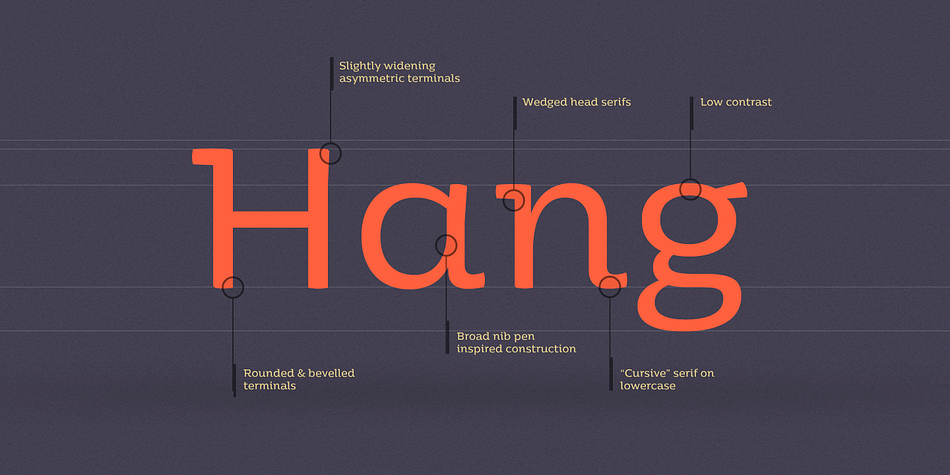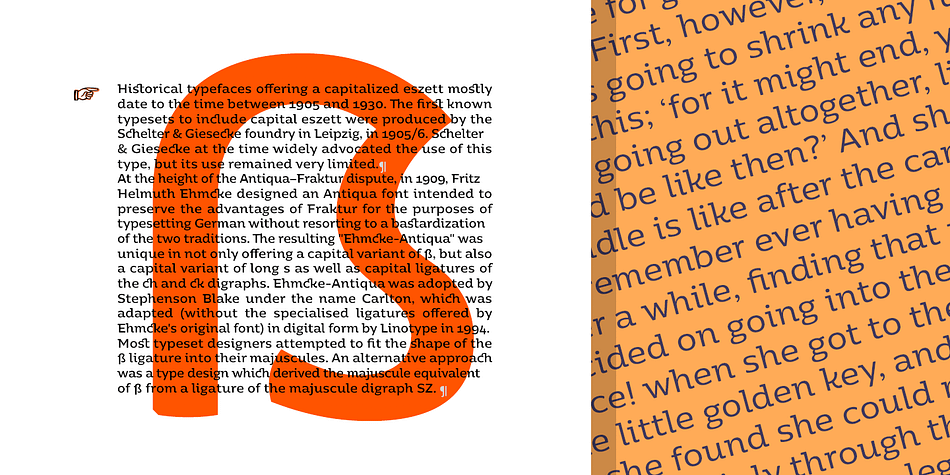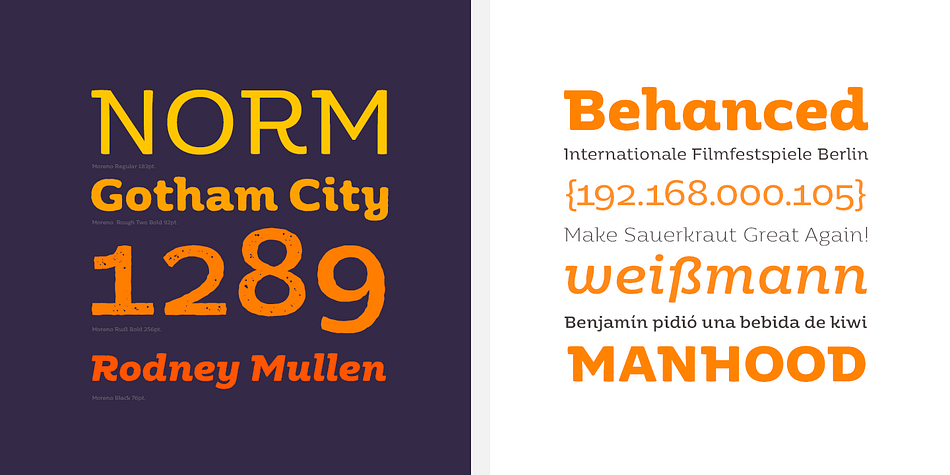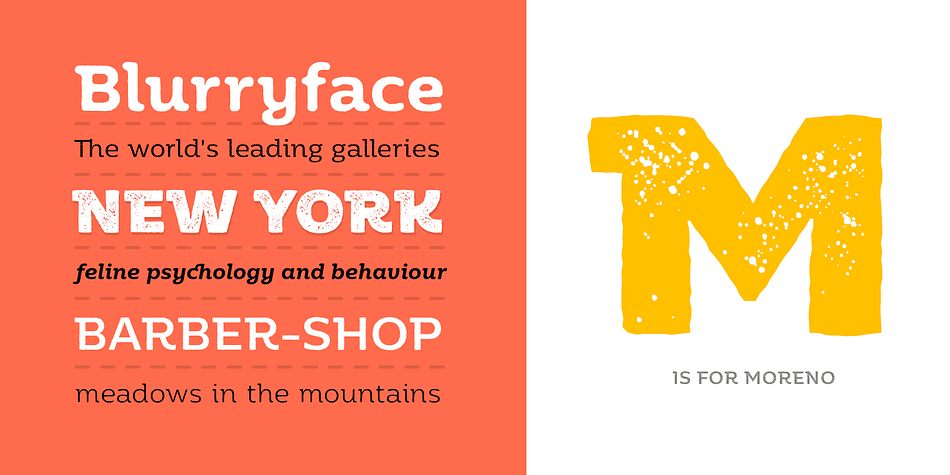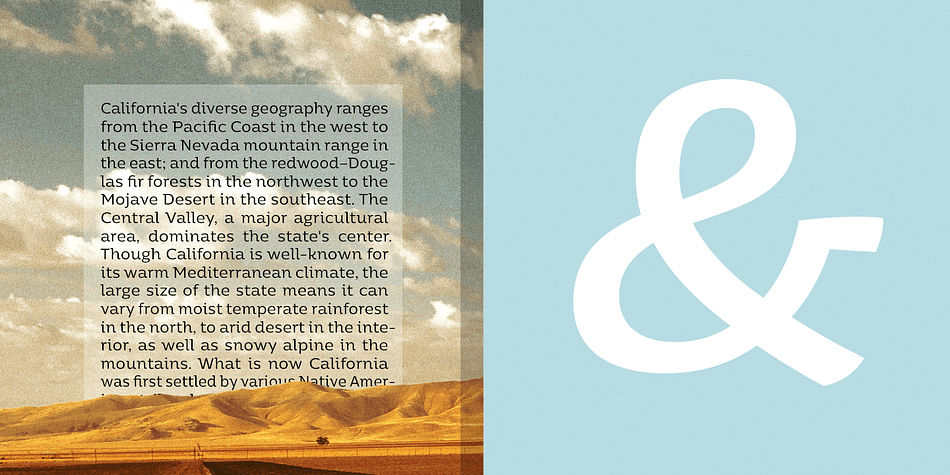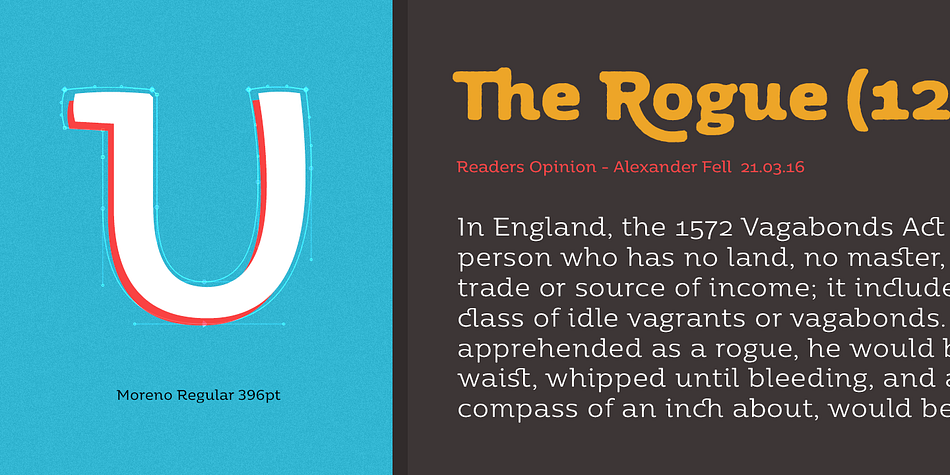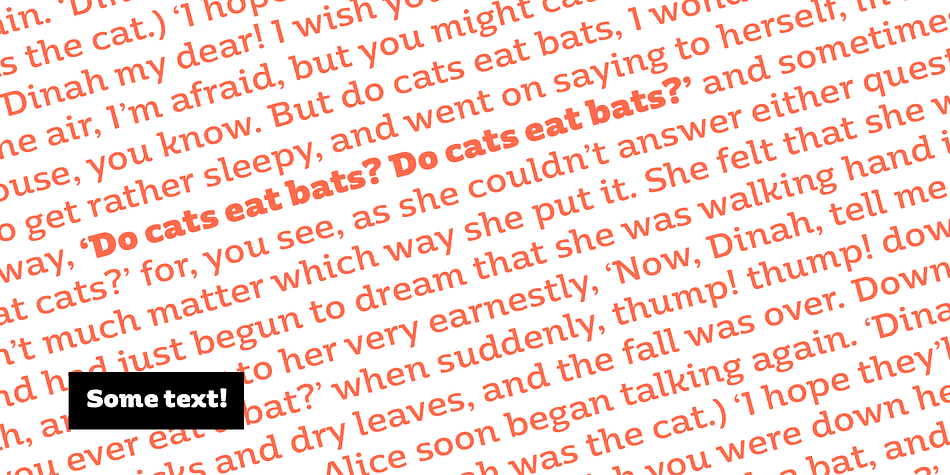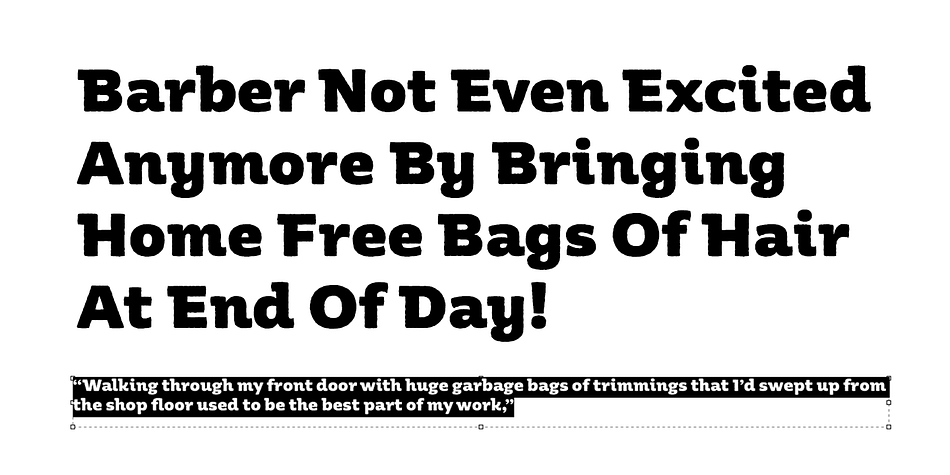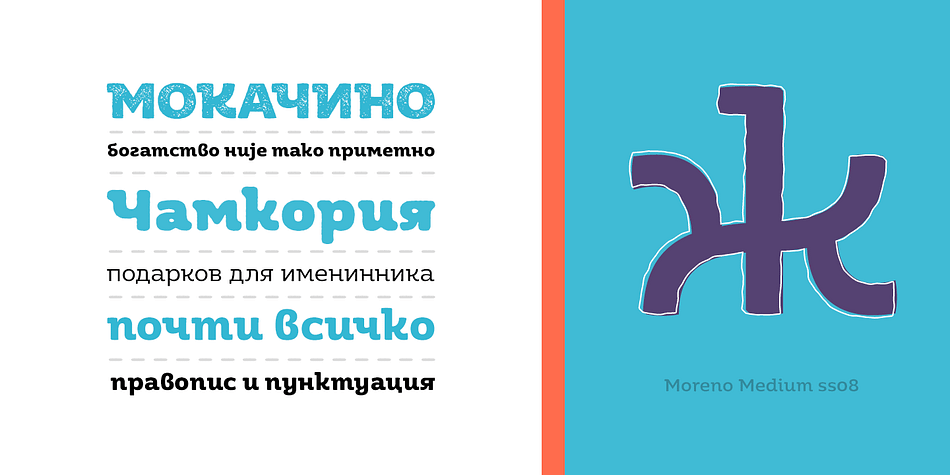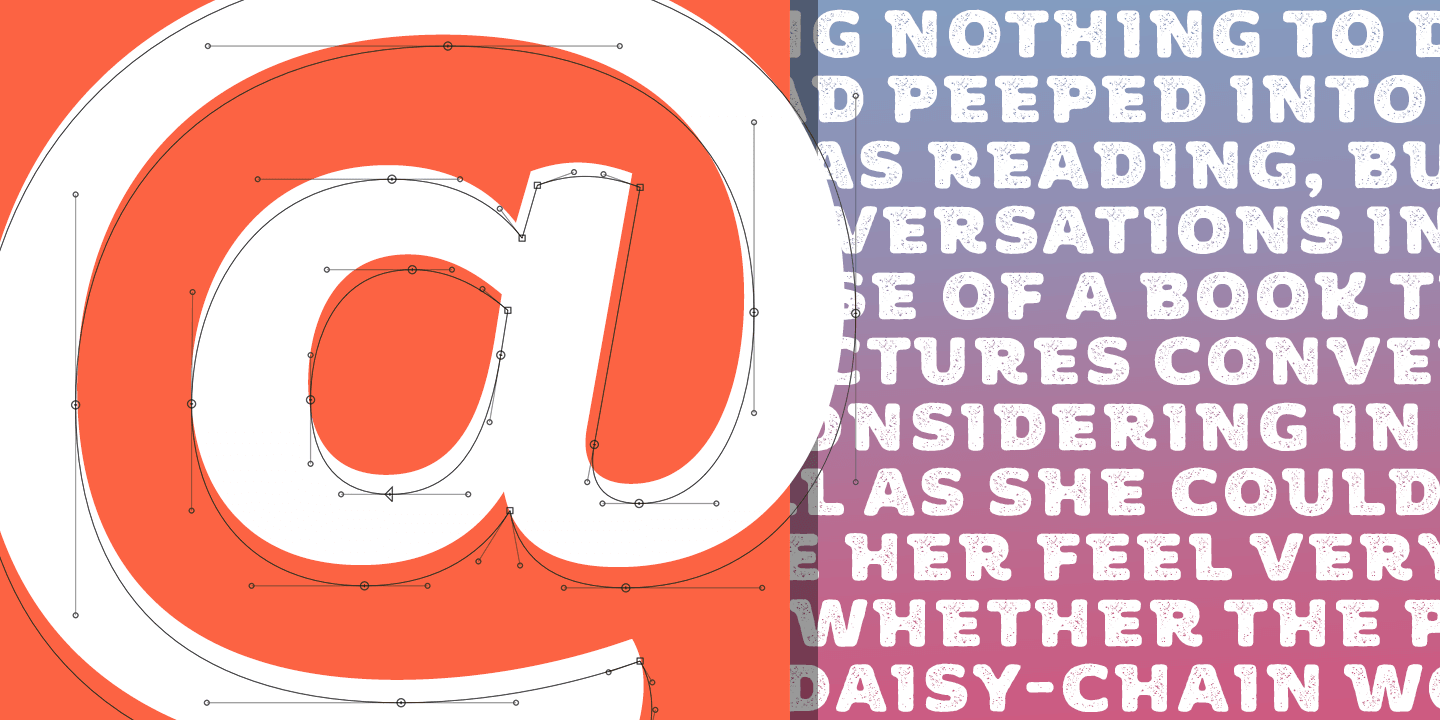
Meet Moreno - a semi serif typeface full of personality and flavor. A display typeface in its nature Moreno is free and informal yet stable and thrustworthy.
Meet Moreno - a semi serif typeface full of personality and flavor. We designed Moreno with the idea of a display typeface - free and informal. Although it is free and playful, Moreno can be used for a longer text as well.
Moreno comes with extensive OpenType support - with more than 15 OpenType features, Moreno is giving you a great variety of stylistic alternatives as well as wide range of ligatures, tabular lining numerals, old style numerals, fractions and many more.
It comes in 8 carefully chosen weights from XThin to Black plus their matching italics. Together with the 4 additional styles, Moreno becomes a diverse type family of 80 fonts suitable for a wide range of design needs like retail. package, food, branding etc. With its language support - over 200 languages (Cyrillic included) - it is ready for world domination!